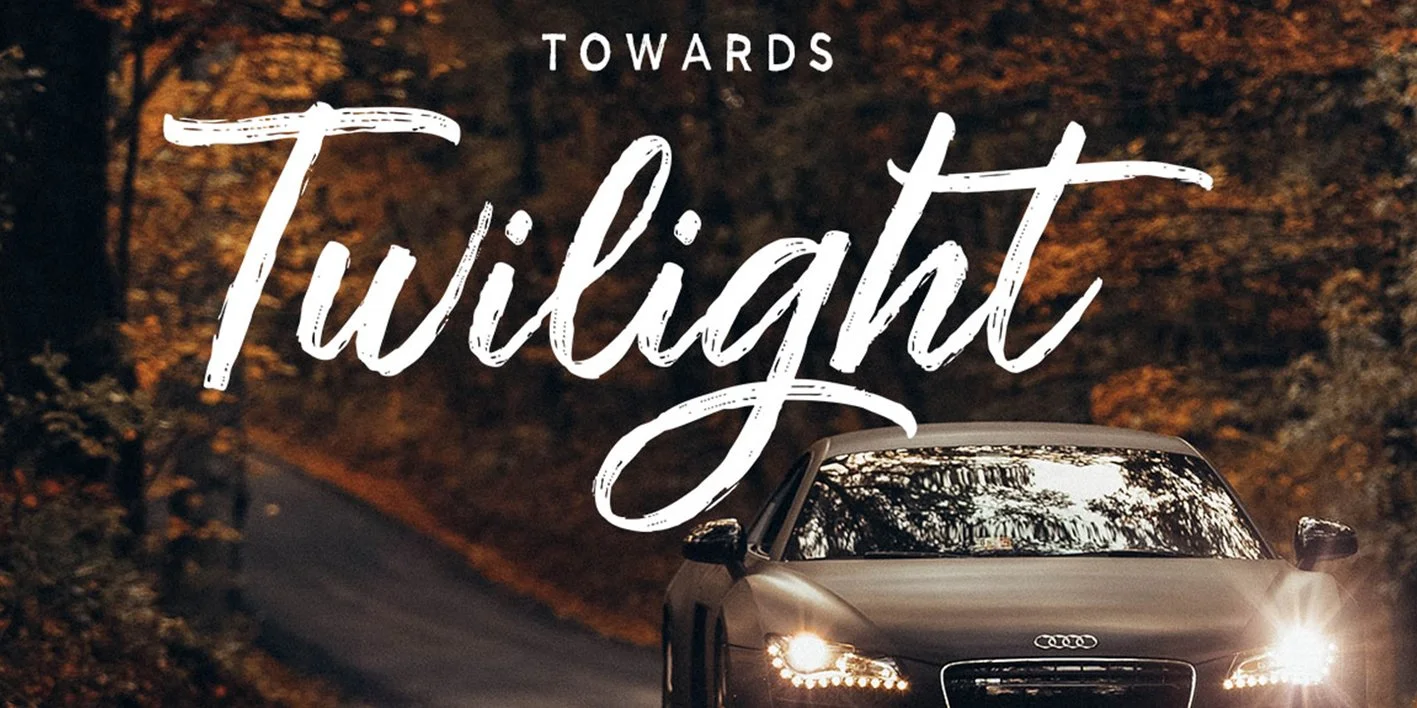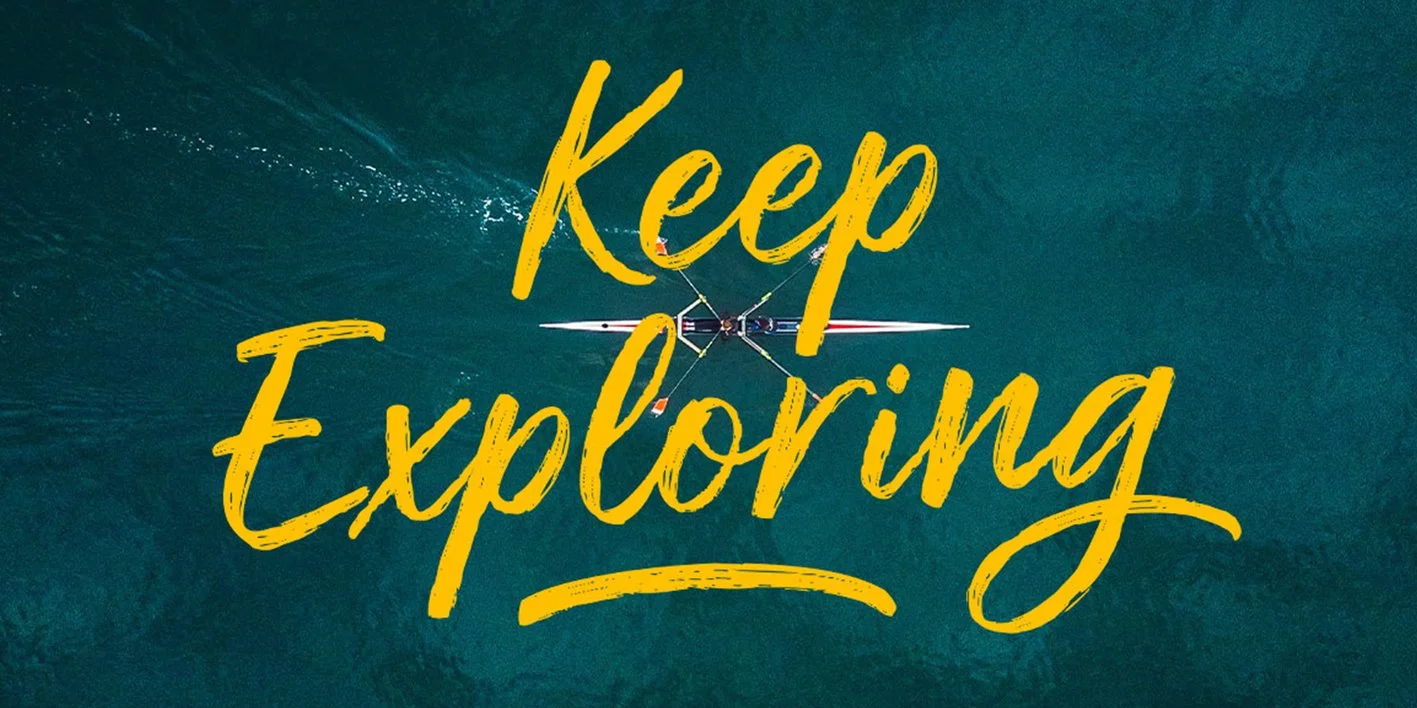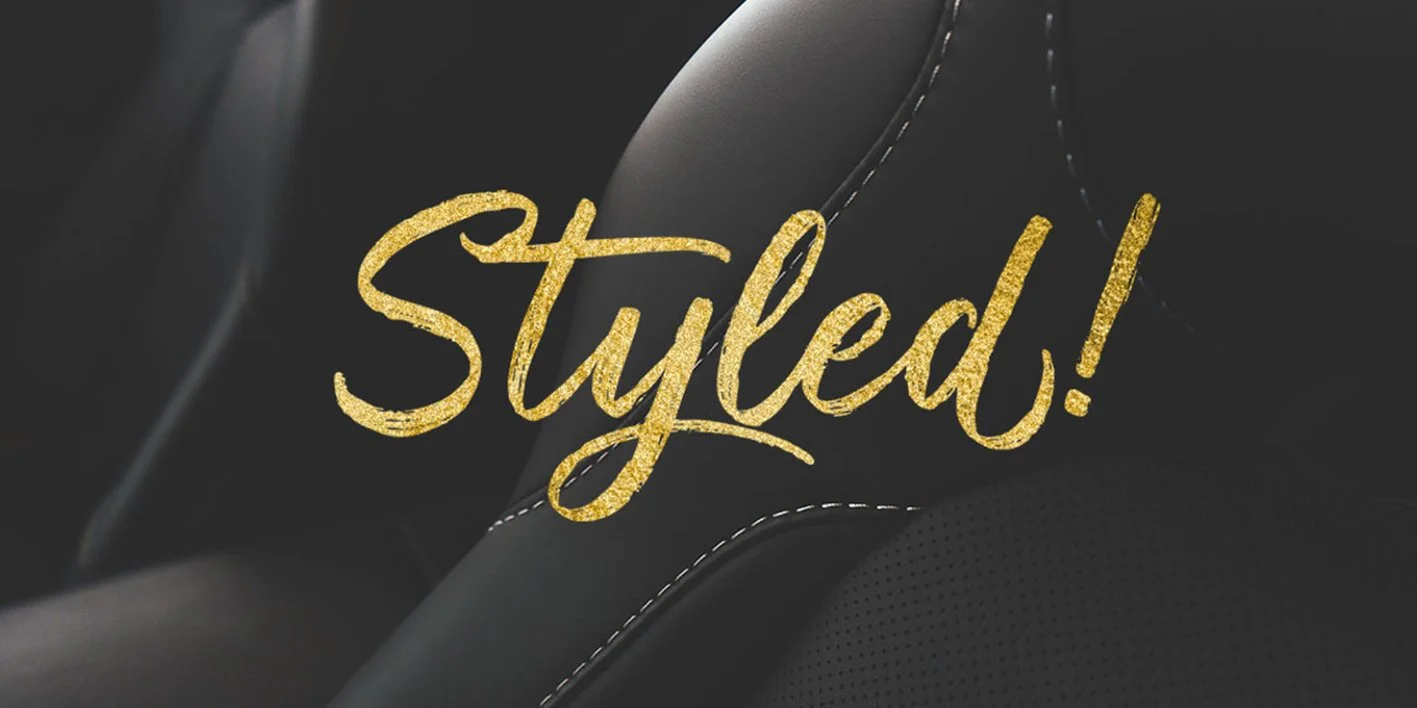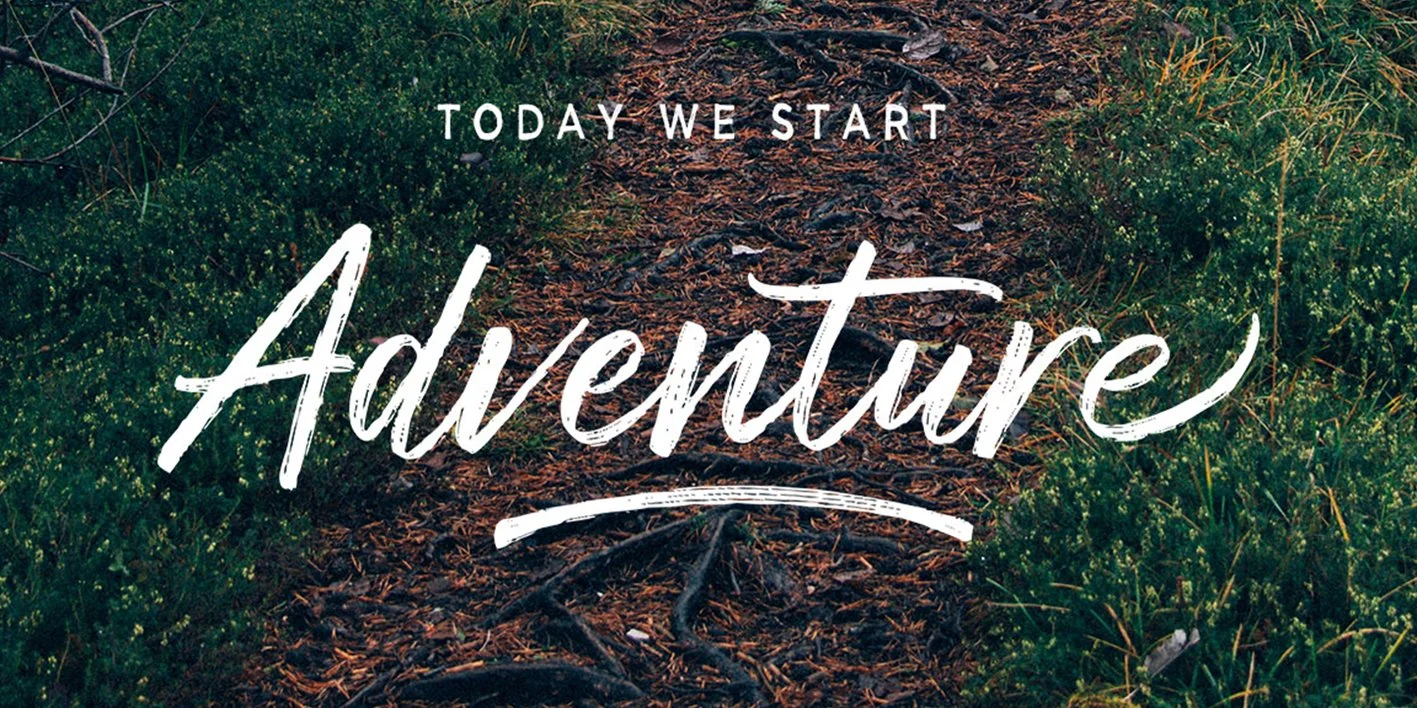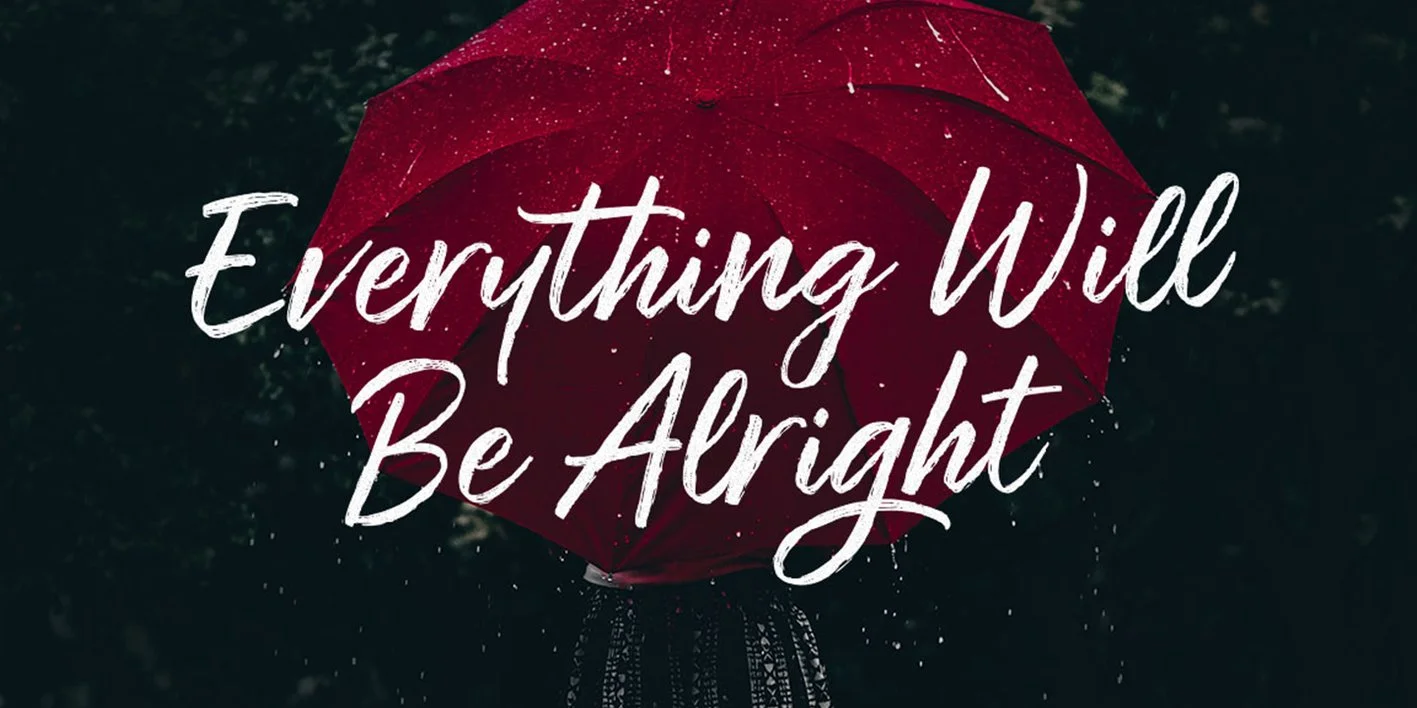
Muthea Font
A good typeface communicates tone before a single word is read. Muthea achieves this through the kind of restraint that lets content lead. The typeface brings a versatile sensibility to a broad range of creative disciplines, with consistent type colour across continuous text that holds up whether the work is print-first or screen-first.
In practice, Muthea proves particularly effective for editorial layouts, annual reports, brand identity systems, poster creation, signage systems. Designers reaching for it find that the type decisions feel resolved rather than laboured — a useful quality when client timelines are tight.
The range of applications extends to packaging design, environmental graphics, web design, product labels. That breadth is deliberate: the proportions and spacing were stress-tested across a wide range of mock briefs before the typeface was finalised.
Muthea sits comfortably alongside both classic and contemporary typefaces in multi-font hierarchies. It takes direction rather than competing for attention — a quality that experienced designers know is harder to find than it appears.
Independent studios handling packaging and editorial work find Muthea a reliable choice for projects that demand both personality and restraint. The design avoids the self-conscious quirkiness that dates quickly, settling instead for considered distinctiveness that holds up over time.